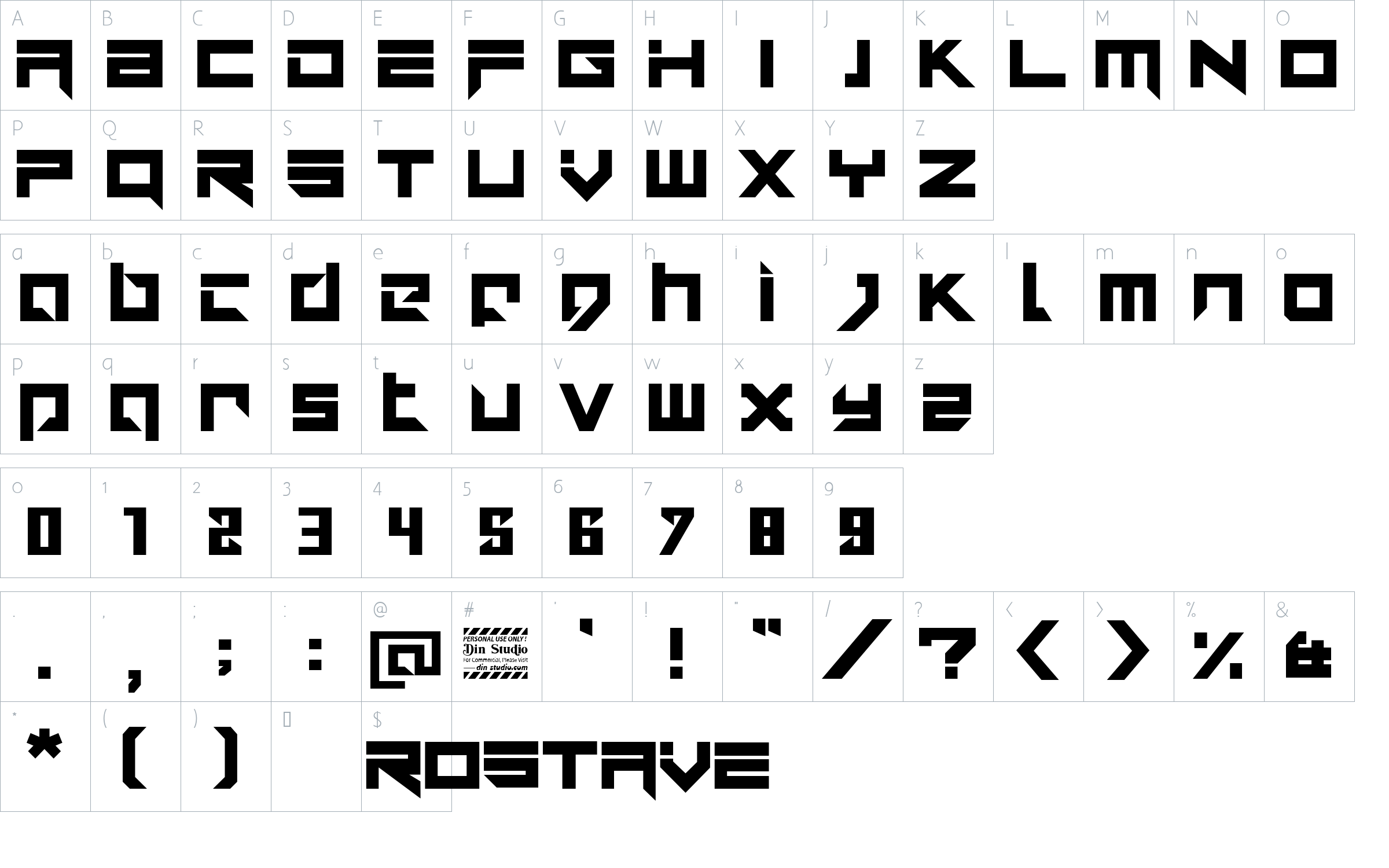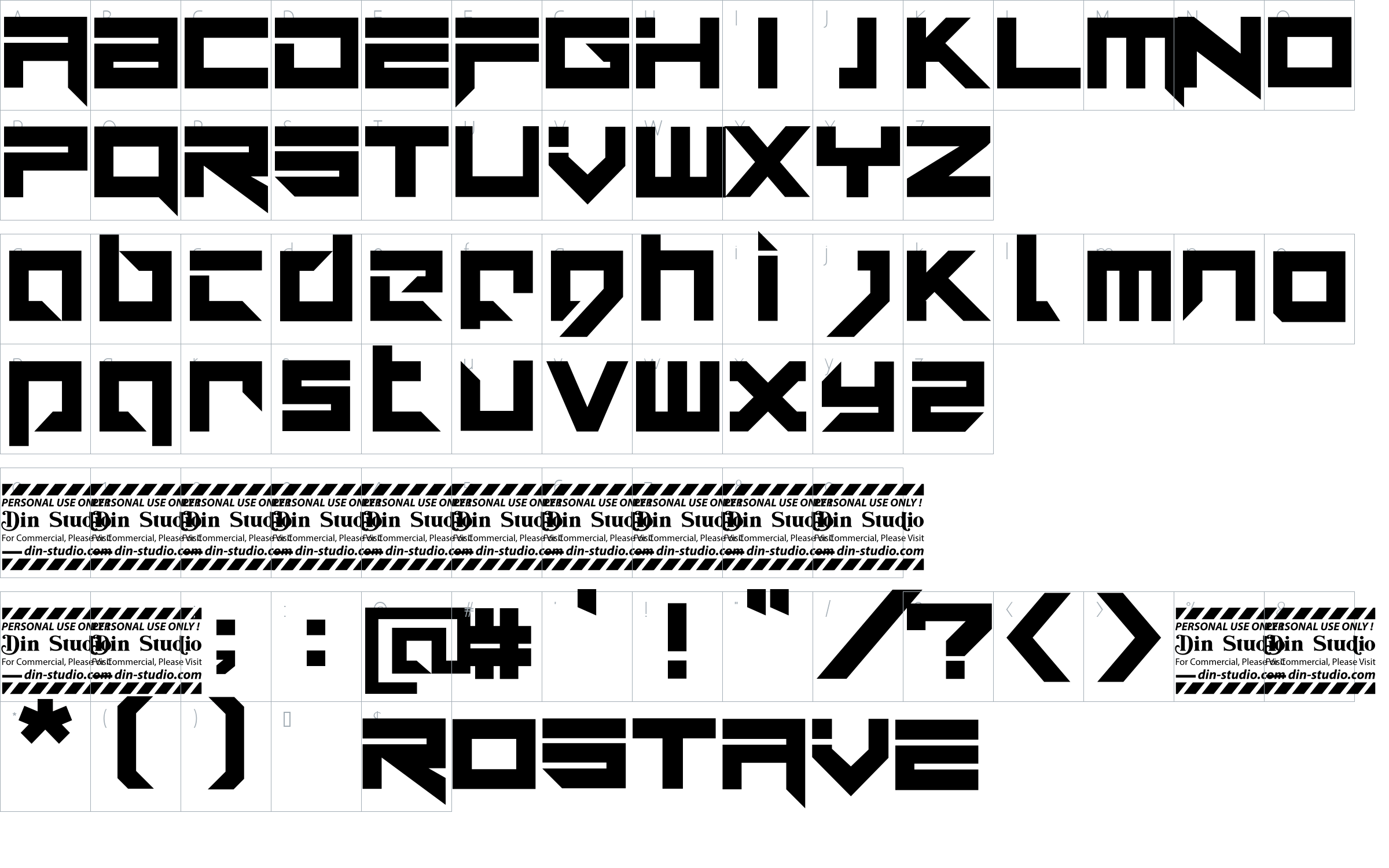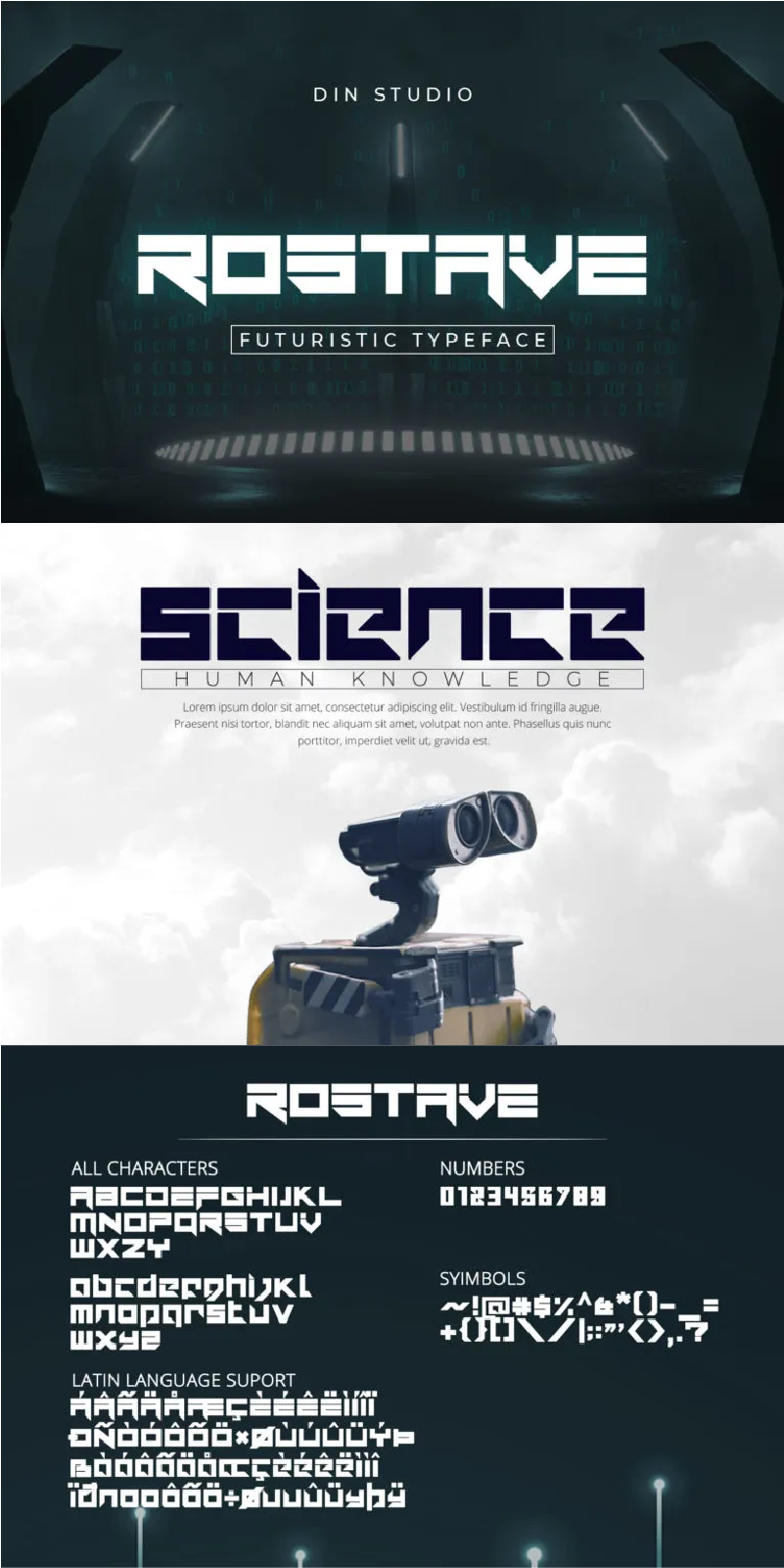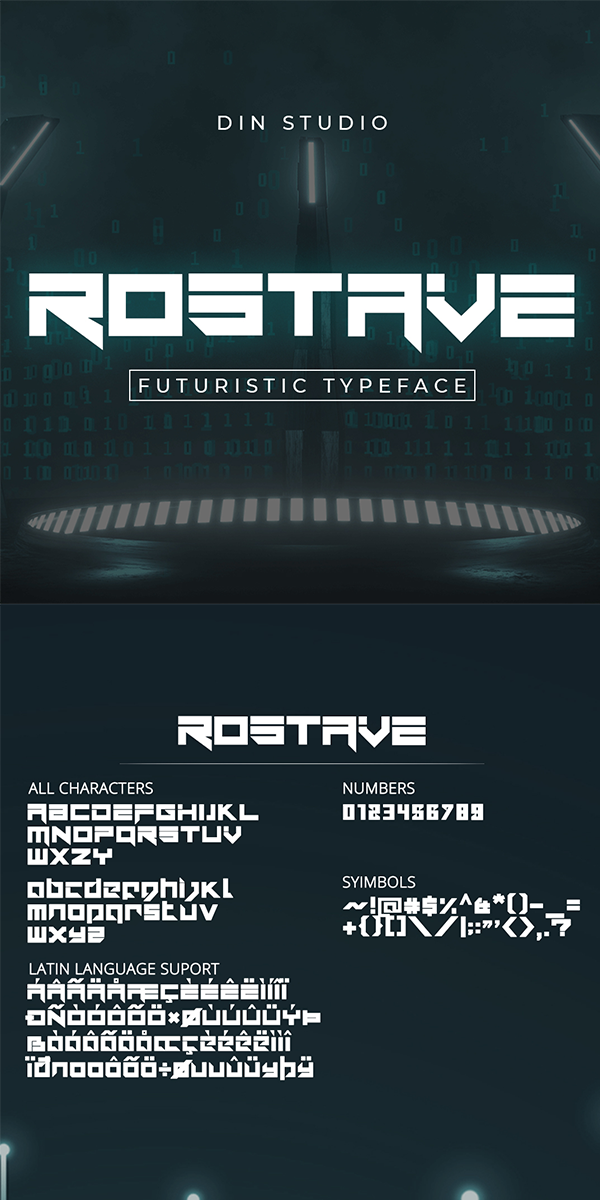
ROSTAVE Font
About ROSTAVE
Rostave Font is created from our talented font designer. The design of typeface will make your project more powerful and inspiring. This font will suitable for any project that needs futuristic touch. See the previews above to get some inspiration on how you can use them. Enjoy the font!